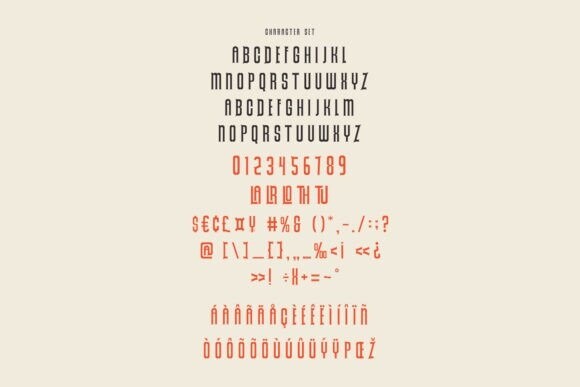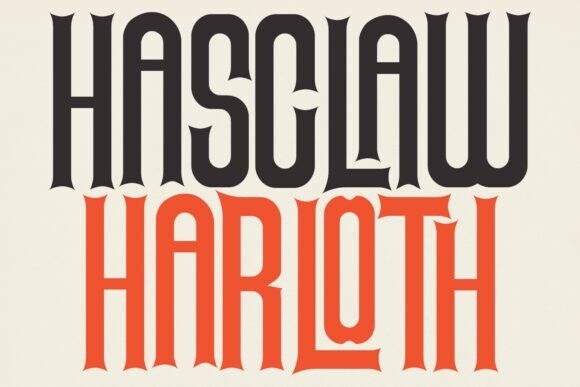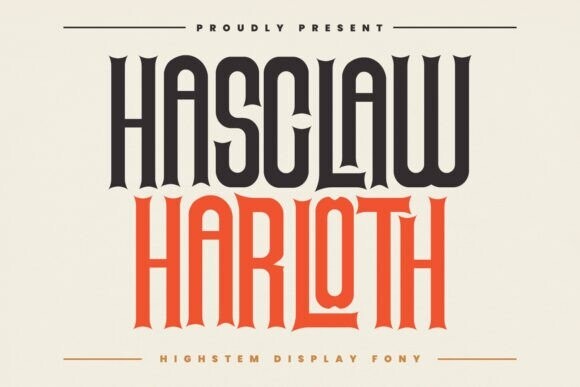
Hasclaw Harloth Font
Designer: Maulana Creative
Hasclaw Harloth Font is a sleek, modern font with tall, slim letters. It’s all in capital letters and has a condensed style, making it perfect for bold headlines, logos, or titles. Its sharp lines give a stylish and edgy look.